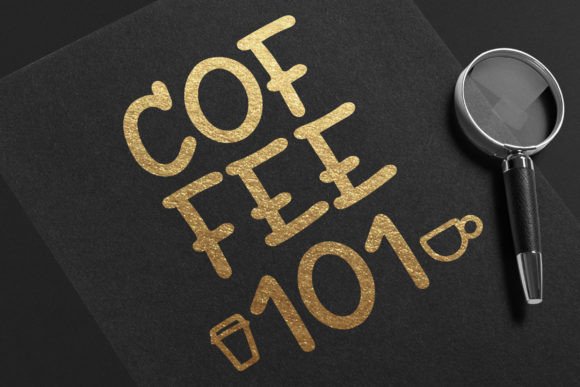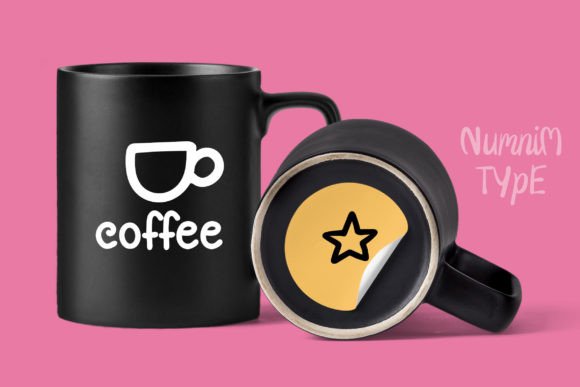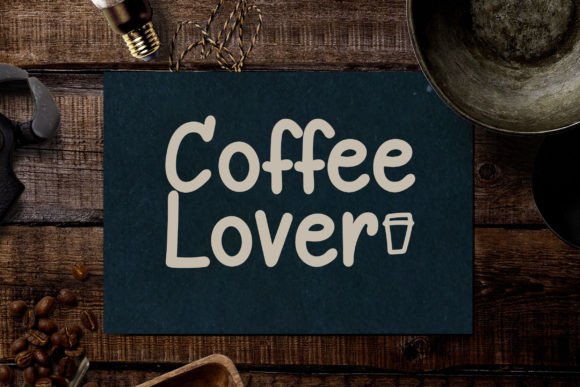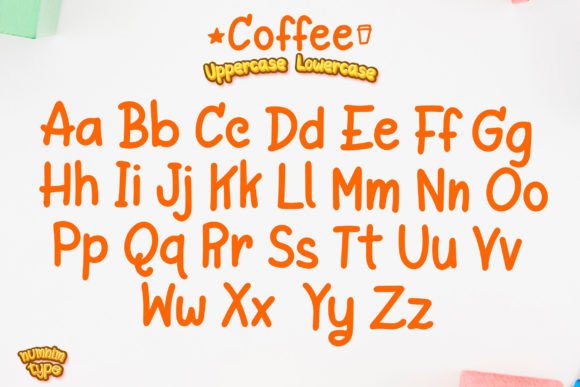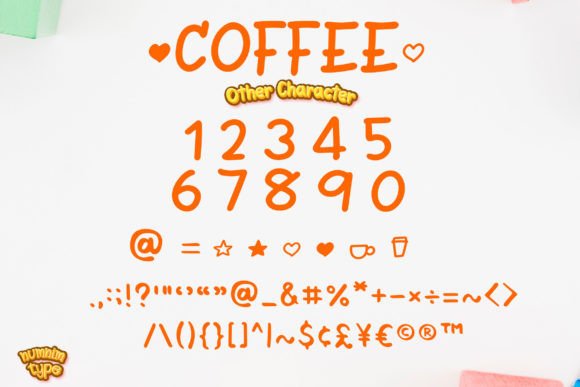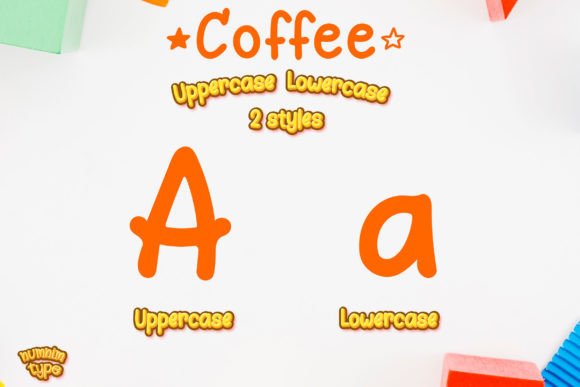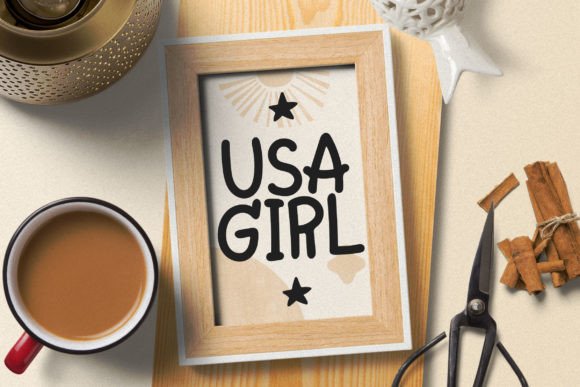
Coffee Font
Coffee is a charming and creatively designed handwritten font. With its playful and fun characters, it’s an ideal choice for a variety of applications, including stickers, mugs, t-shirts, ornaments, summer event cards, and more! The uniqueness of this font adds a delightful touch, making it perfect for projects that aim to convey a cute and cheerful vibe.
Whether you’re creating items for personal use or designing products for sale, Coffee’s distinctive charm lends itself well to a range of creative endeavors. The handwritten style of this font adds an element of warmth and authenticity, making it particularly well-suited for casual and lighthearted designs.
Imagine the playful characters of Coffee adorning stickers or bringing a whimsical touch to mugs and t-shirts. The versatility of this font allows you to infuse joy and creativity into various products and projects, making it a valuable asset for your design toolkit.
For summer event cards or any project where a cute and uniquely crafted font is desired, Coffee stands out as an excellent choice. Let it bring a sense of fun and personality to your designs, making them memorable and enjoyable. Incorporate Coffee into your creative projects and watch as its playful charm enhances the overall appeal of your work.